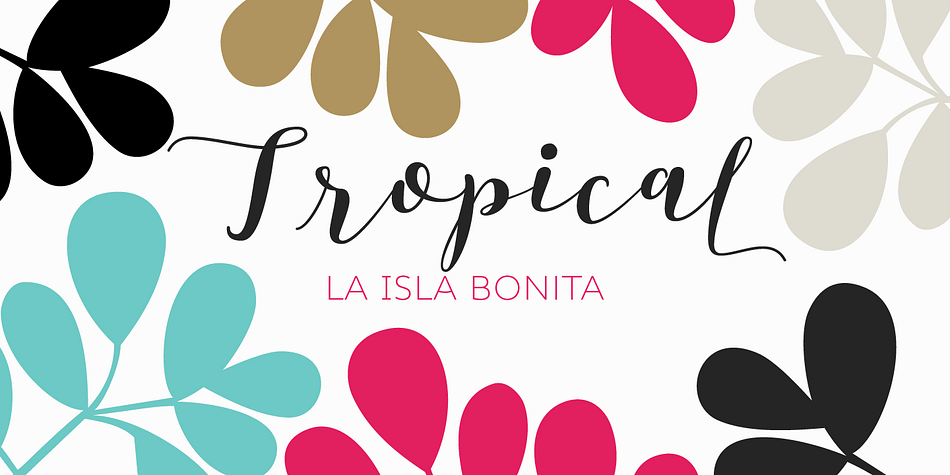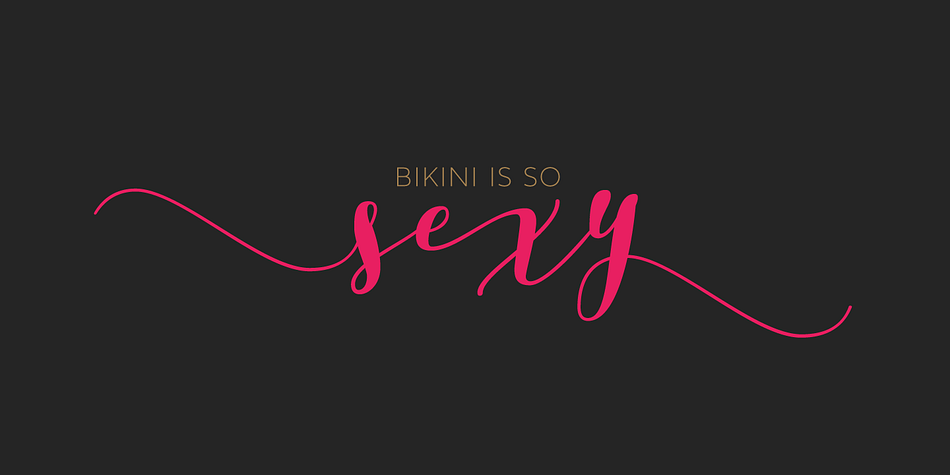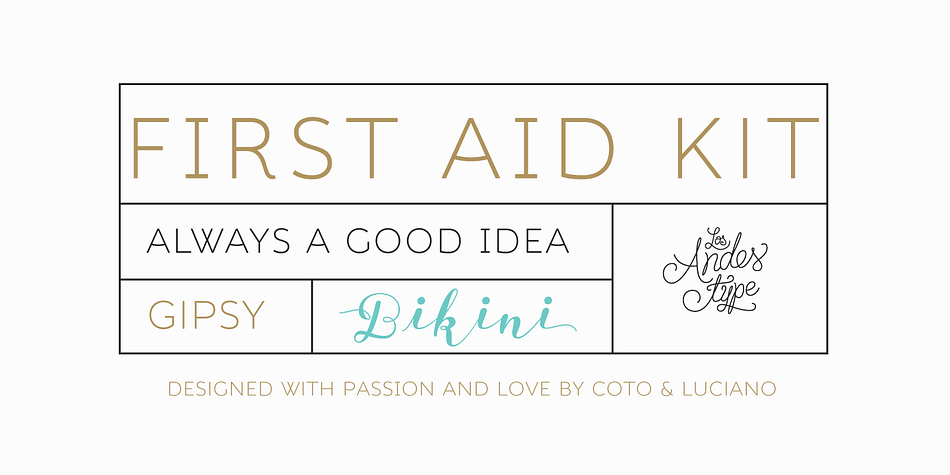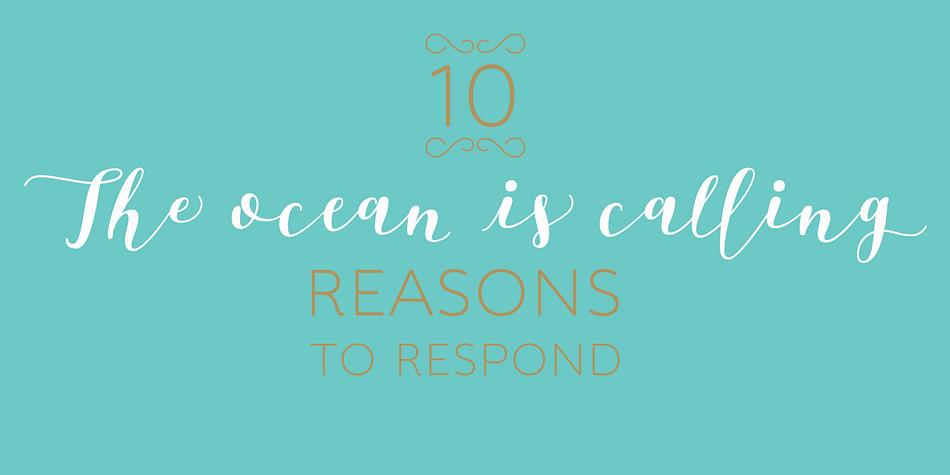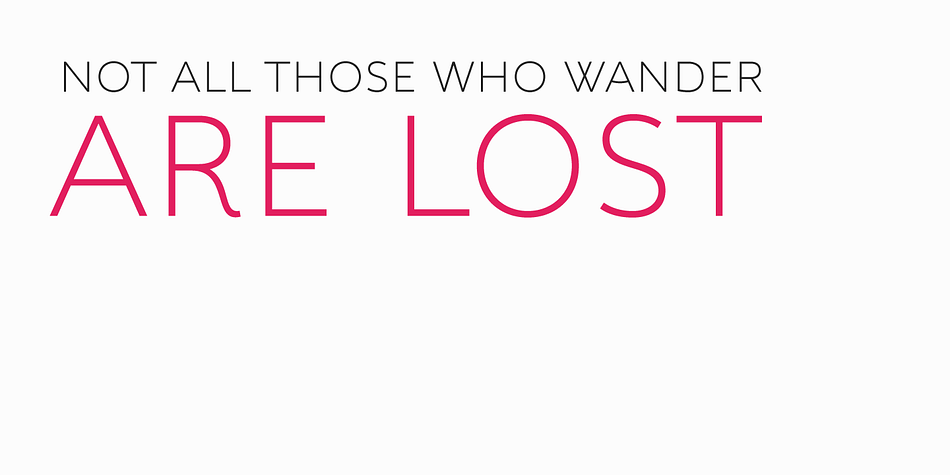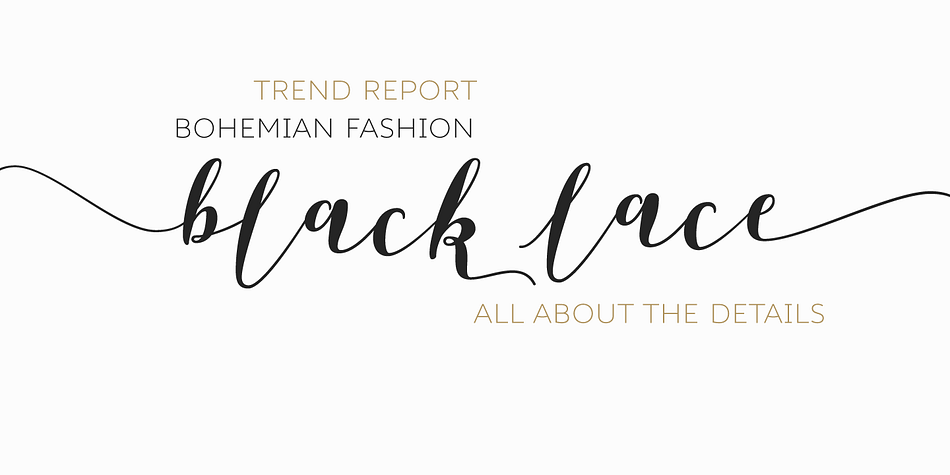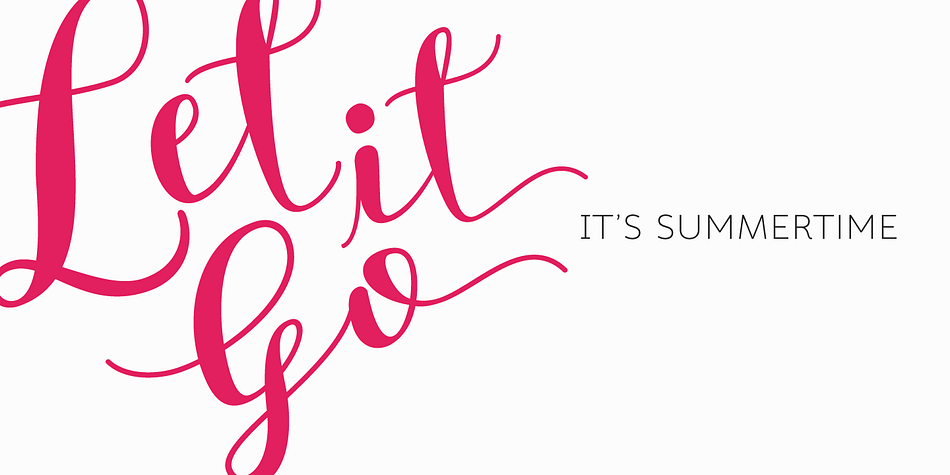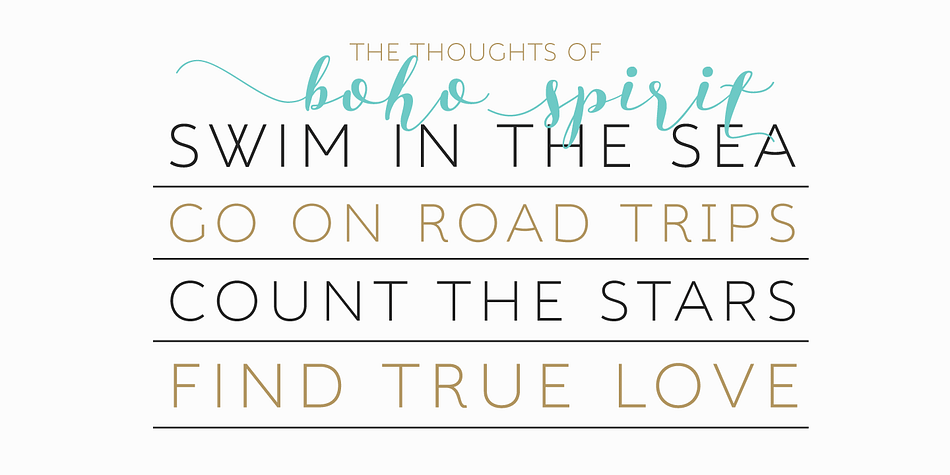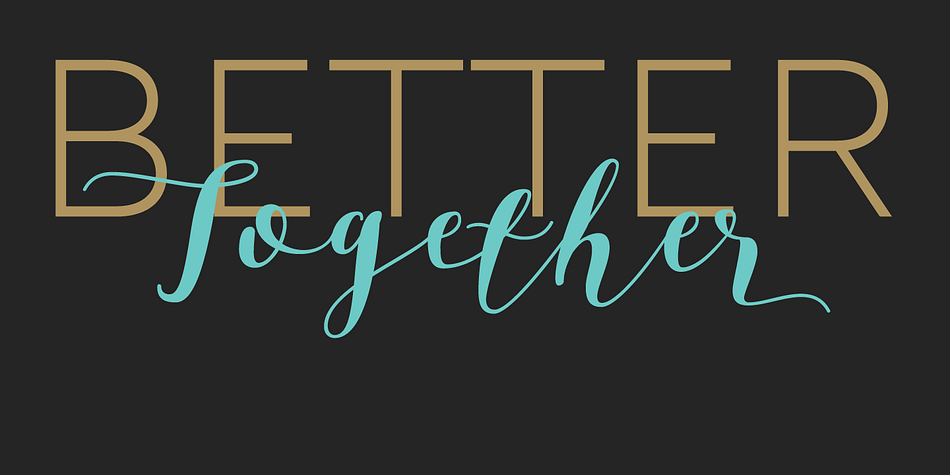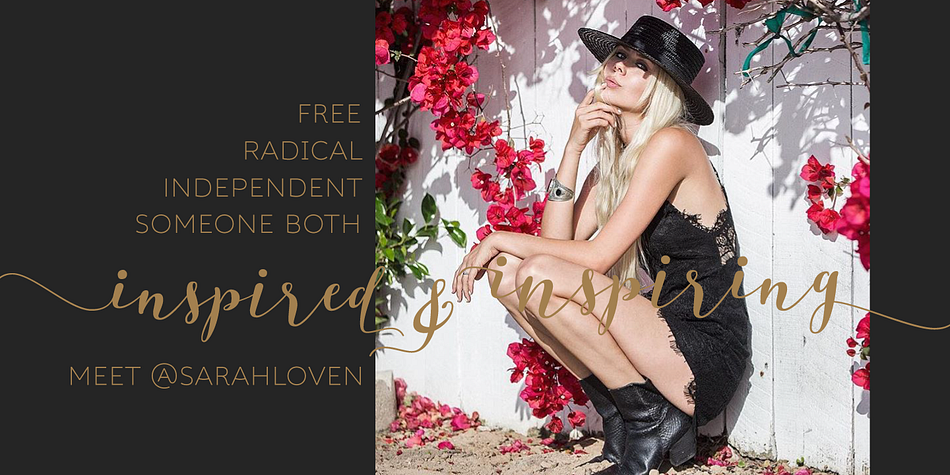
Designed by Guisela Mendoza and Luciano Vergara, Bikini Season is a script, display sans and modern calligraphy font family. This typeface has two styles and was published by Los Andes Type.
Summer has come! Boho girl is going on her beach vacation. Relaxed, spontaneous, feminine, irreverent, though. Like a girl with a Gipsy soul, she just grabs her Bikini and turns away! This is the new font duo by the couple Coto and Luciano.
Bikini includes a sans version, based on the proportion and structure of Roman capitals, but with a contemporary flavor and a clean style that give the typeface a chic touch. The other version of this font duo is a modern calligraphy script of handmade style. The mix is just perfect: opposites attract creating a very interesting counterpoint. Can you guess who is the designer behind each style?
This font duo is intended to be used for posters, labelling or branding. The sans and script styles add visual hierarchy when composing text. Feel the fresh free spirit of its OpenType features and ornaments! Please see User Guide
Every season is Bikini season!